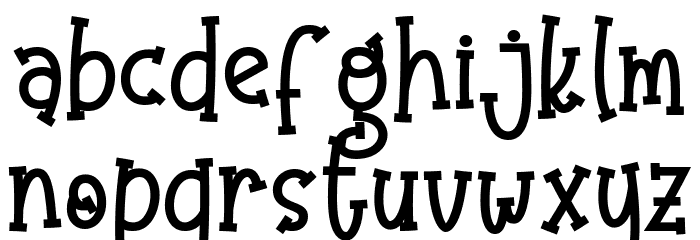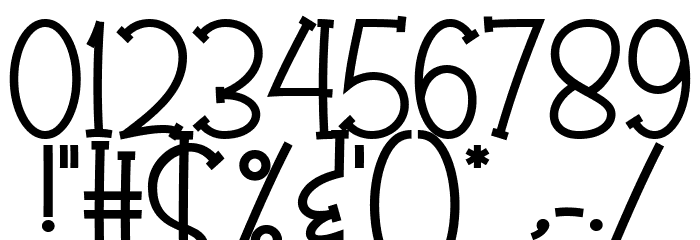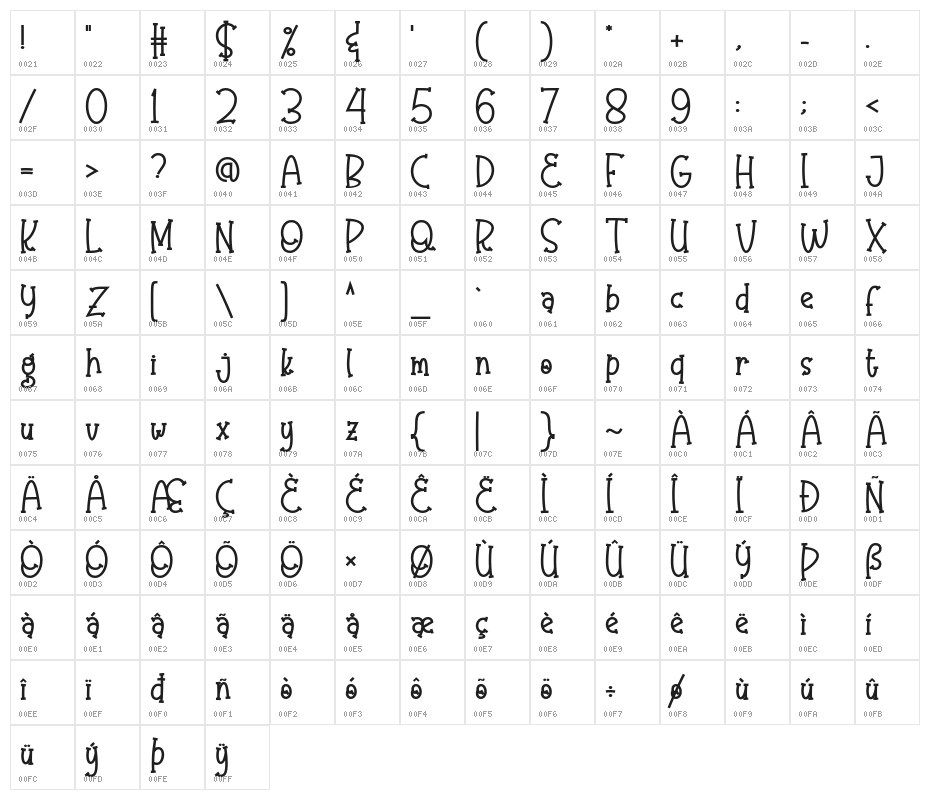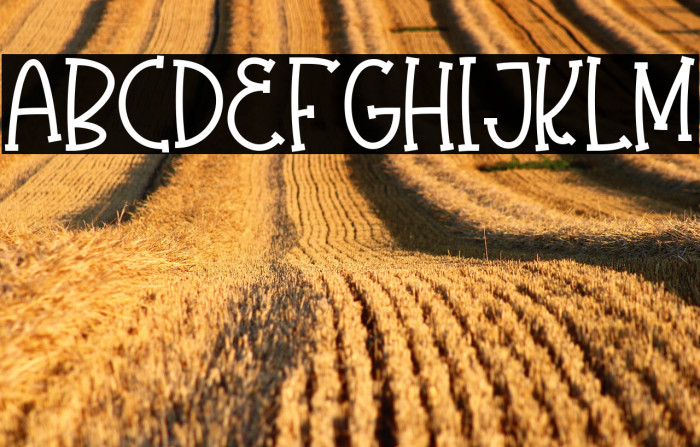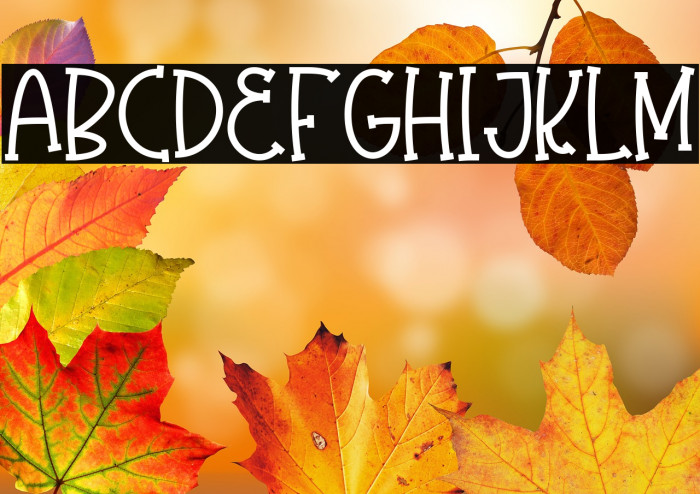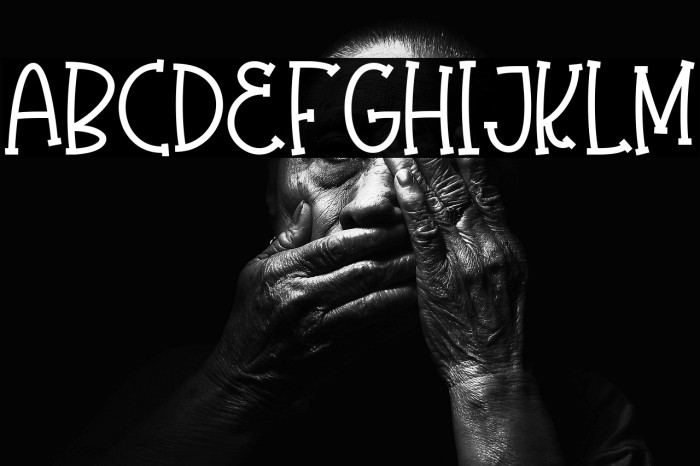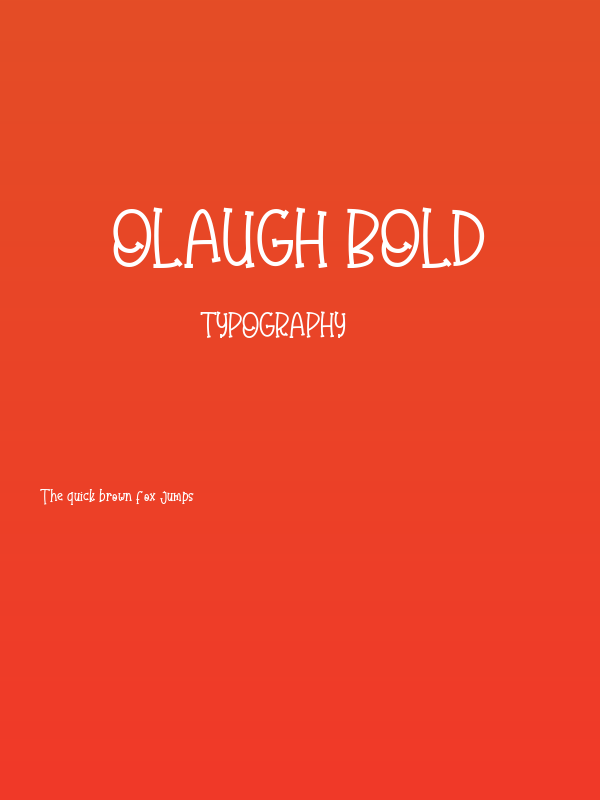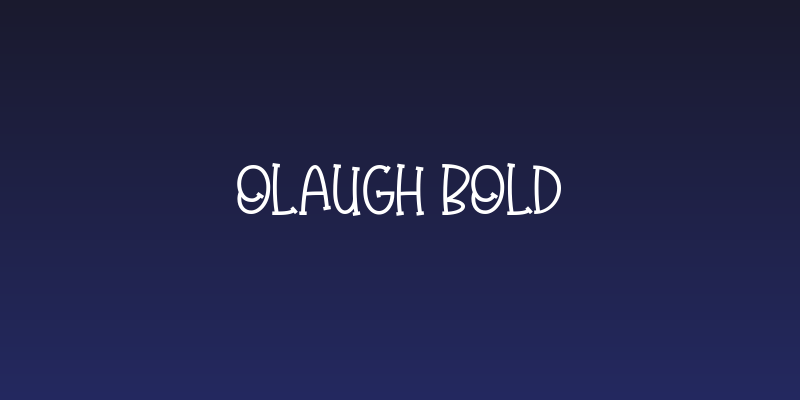
Olaugh Bold Font
This font features a playful and whimsical design, characterized by its uneven strokes and quirky serifs. The letters have a hand-drawn quality, with varying thicknesses that add to its charm. The uppercase letters are bold and slightly condensed, while the lowercase letters maintain a consistent style with a touch of eccentricity. Numbers and special characters follow the same playful theme, making the font suitable for creative and informal projects. Its unique style is eye-catching and adds a fun element to any design.
A playful, whimsical font with uneven strokes and quirky serifs.
- Font: Olaugh Bold
- Proposed Projects: Ideal for children's books, playful branding, greeting cards, and creative posters.
- Overall Style: Whimsical, Playful